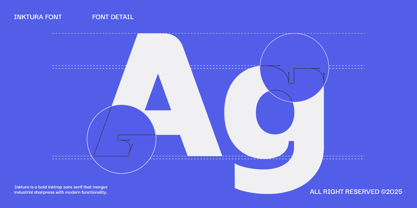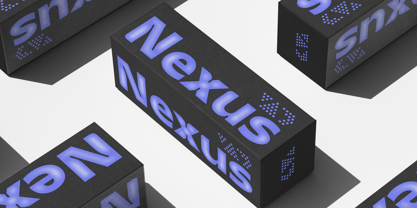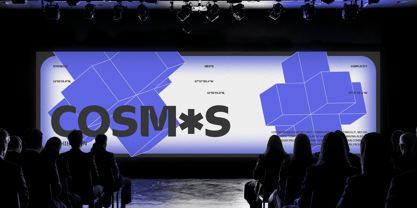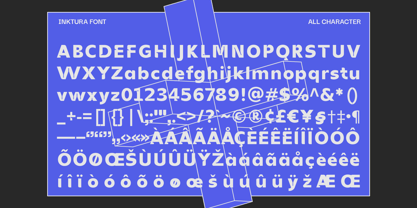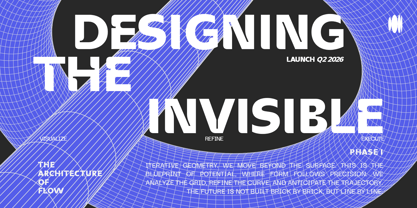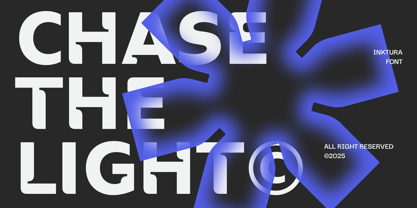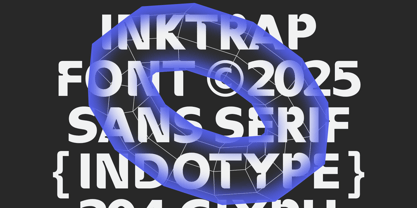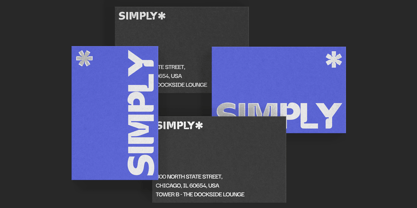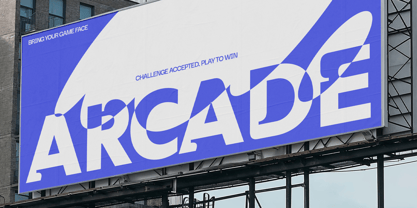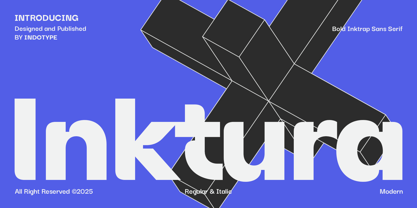
IT Inktura
by Indotype
The IT Inktura Font Family was designed by Dede Kurniawan and published by Indotype. IT Inktura contains 2 styles and family package options. More about this family
Introducing Inktura, a bold and striking sans-serif typeface that marries industrial strength with sophisticated typographic detailing. Defined by its prominent ink traps—those sharp, angled cuts at the junctions of letterforms—Inktura is engineered for maximum impact in both print and digital display. This functional design feature, rooted in traditional printing, evolves into a bold aesthetic statement, giving the font a distinctive architectural quality. Available in both commanding Regular and dynamic Italic styles, Inktura is built for the modern designer who isn’t afraid to make a statement. Its robust weight and geometric construction command attention, making it perfect for headlines, branding, posters, and editorial design where confidence is key. Inktura is more than just bold; it’s intelligently bold, designed to hold its integrity at any scale. • Ideal for: Bold Headlines, Tech & Editorial Branding, Poster Design, Magazine Covers, Packaging, Logotypes. • Classification: Sans-Serif, Display, Geometric, Ink Trap. • Attributes: Bold, Industrial, Architectural, Confident, Modern, Striking, Technical.